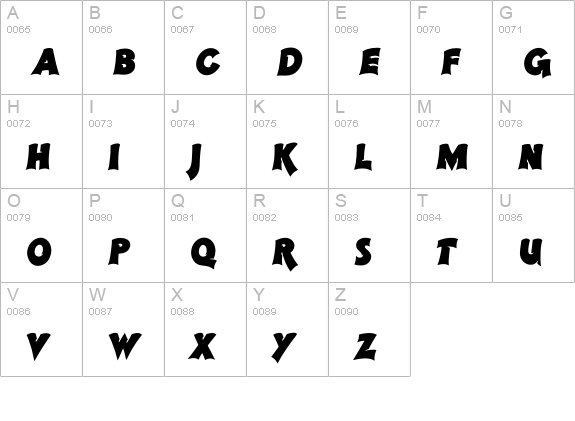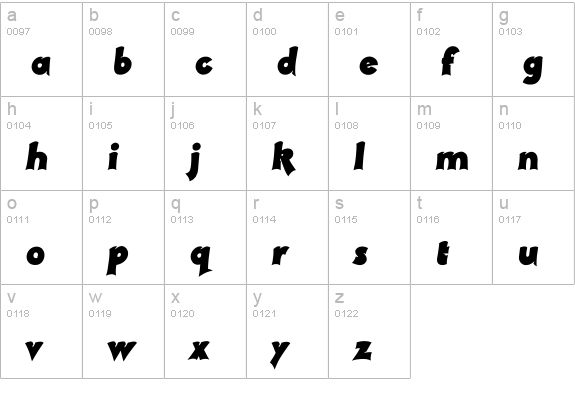
RazorBillRR Font Details
Introducing RazorBillRR font, a versatile typeface that combines elegance with a modern twist. This font is perfect for designers and creatives seeking a unique and eye-catching look for their projects. RazorBillRR is meticulously crafted with precision and attention to detail, resulting in a font that exudes professionalism and sophistication. Its sleek lines and bold strokes make it ideal for headlines, logos, branding materials, and more. But what truly sets RazorBillRR apart is its availability. This font is absolutely free and can be easily downloaded at FontsMarket.com, one of the leading sources for high-quality and diverse fonts. Its accessibility allows designers of all levels to enjoy the benefits of this remarkable typeface without any financial burden. Whether you're working on a personal project or a commercial endeavor, RazorBillRR is here to elevate your designs to new heights. Its clean and legible characters ensure readability across various mediums, while its modern aesthetic adds a touch of contemporary flair to any composition. In conclusion, with its impeccable design, versatility, and availability as a free download at FontsMarket.com, RazorBillRR font is the perfect choice for designers and creatives looking to make a lasting impression. Don't miss out on this incredible opportunity to enhance your work with a font that combines elegance and accessibility.